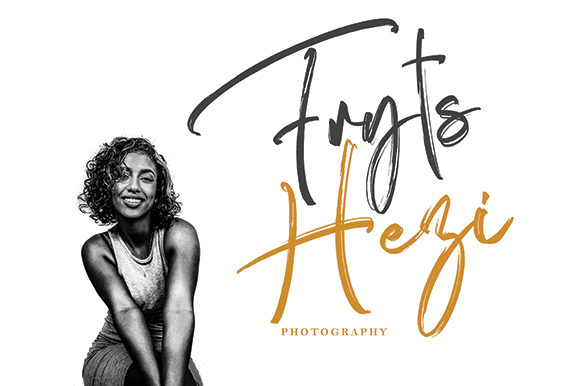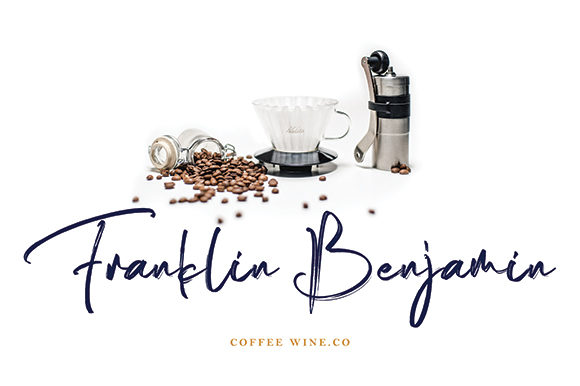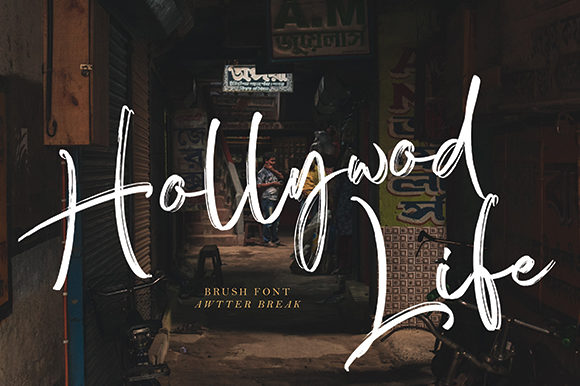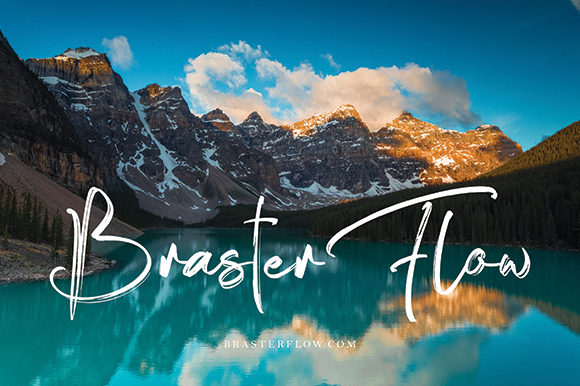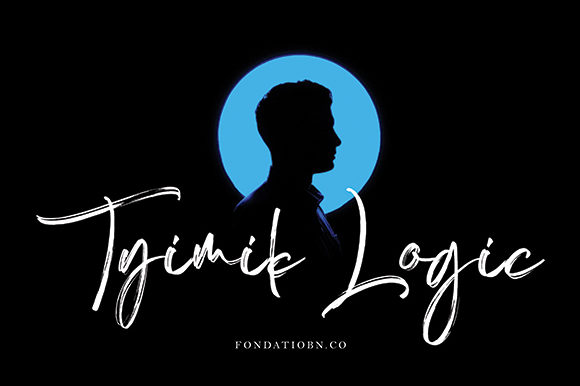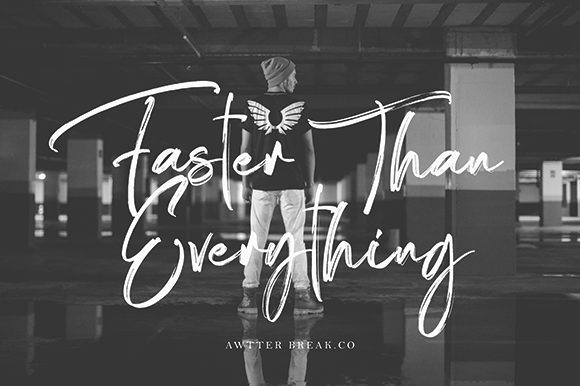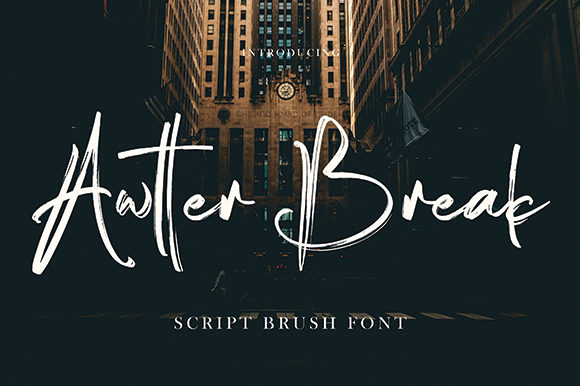
Awtter Break Font: Elevate Your Designs with a Flowing Brushed Handwritten Style
Are you tired of using the same old fonts in your designs? Look no further than Awtter Break, a beautiful flowing brushed handwritten font that’s perfect for a wide range of creative projects. In this article, we’ll dive into the features and benefits of Awtter Break, and explore how you can use it to take your designs to the next level.
What is Awtter Break Font?
Awtter Break is a unique and stylish font that’s designed to add a personal touch to your designs. It’s a flowing brushed handwritten font that features smooth, connected letters and a relaxed, casual feel. The font is perfect for designers and crafters who want to add a touch of elegance and sophistication to their work.
What Can I Use Awtter Break Font For?
One of the best things about Awtter Break is its versatility. This font can be used for a wide range of purposes, including:
- Logos: Create a unique and memorable logo for your business or brand with Awtter Break.
- Wedding Invitations: Add a touch of romance and elegance to your wedding invitations with this beautiful font.
- Headings: Use Awtter Break to create eye-catching headings for your blog posts, articles, and other written content.
- T-Shirts: Design custom t-shirts with Awtter Break for a unique and stylish look.
- Letterhead: Elevate your business correspondence with Awtter Break’s professional yet personal feel.
- Signage: Use Awtter Break for signage, banners, and other display materials to grab attention and make a lasting impression.
- Labels: Create custom labels for your products or packaging with Awtter Break’s flowing, handwritten style.
- News: Use Awtter Break for newspaper or magazine headlines to add a touch of personality and flair.
- Posters: Design eye-catching posters with Awtter Break to promote your business, event, or cause.
- Badges: Create custom badges with Awtter Break for a unique and stylish look.
Features and Benefits of Awtter Break Font
Awtter Break offers a range of features and benefits that make it an ideal choice for designers and crafters. Some of the key features include:
- Unique and stylish design: Awtter Break’s flowing brushed handwritten style sets it apart from other fonts.
- Versatile: This font can be used for a wide range of purposes, from logos and headings to t-shirts and signage.
- Elegant and sophisticated: Awtter Break adds a touch of elegance and sophistication to any design.
- Easy to read: Despite its flowing, handwritten style, Awtter Break is easy to read and understand.
- Customizable: You can customize Awtter Break to fit your needs, from adjusting the size and color to adding your own unique touches.
Tips for Using Awtter Break Font
To get the most out of Awtter Break, here are a few tips to keep in mind:
- Use it sparingly: Awtter Break is a statement font, so use it sparingly to add emphasis and personality to your designs.
- Pair it with other fonts: Combine Awtter Break with other fonts to create a unique and visually appealing design.
- Experiment with colors: Try out different colors and textures to add depth and interest to your designs.
- Keep it simple: Don’t overcomplicate your design – Awtter Break’s simplicity and elegance are part of its charm.
Awtter Break is a beautiful and versatile font that’s perfect for designers and crafters looking to add a touch of elegance and sophistication to their work. With its flowing brushed handwritten style and wide range of uses, Awtter Break is an ideal choice for anyone looking to elevate their designs. Whether you’re creating logos, wedding invitations, headings, or something else entirely, Awtter Break is sure to make a lasting impression.